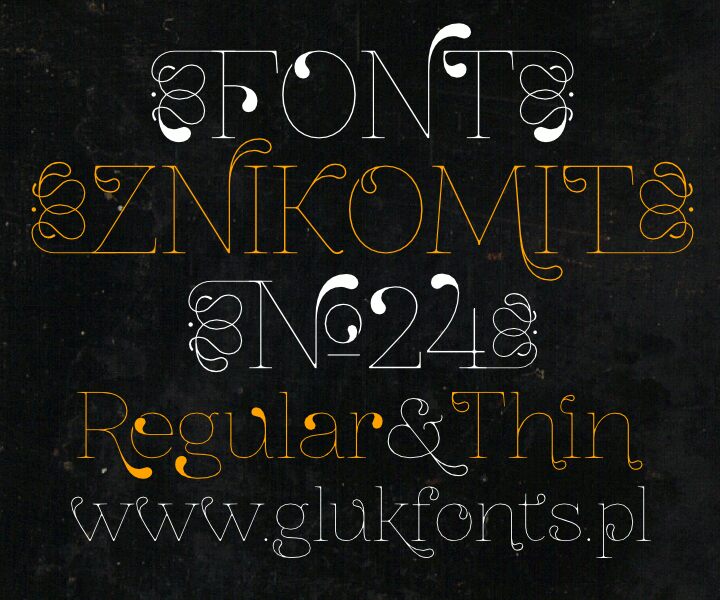
Znikomit No24 Thin by Gluk is a free decorative display font with tall, finely drawn letters and an elegant, fashion-led silhouette. Long curling strokes spill from several forms, and compact loops interrupt the otherwise restrained structure with an eccentric flourish.
Packaging gives this lettering a convincing home on perfume boxes, confectionery labels, and boutique cosmetics, where its hairline detail can become part of the ornament. It also suits fashion editorials and invitations that favor theatrical typography over strict classicism. The looping extensions lend those projects a touch of Art Nouveau romance, especially for beauty, ceremony, and period-inspired themes.
ZnikomitNo24 is a serif font based on Znikomit. For correct operation, the font requires the OpenType features Standard Ligatures and Contextual Alternates.